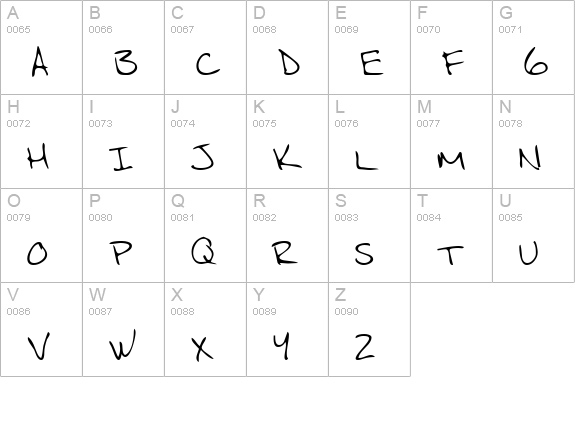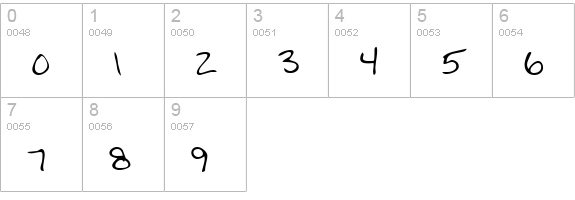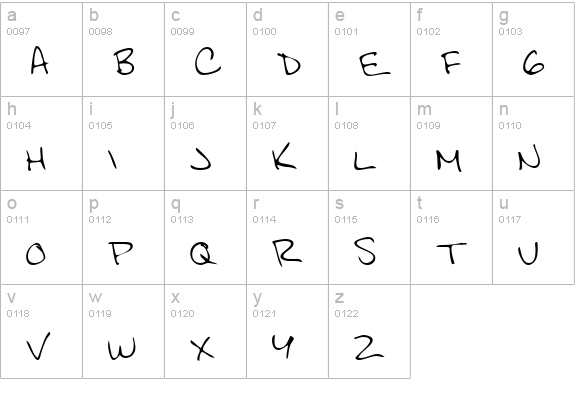
JeffreysHand Regular Font Details
JeffreysHand Regular is the standard, neutral variant in the JeffreysHand typeface family \xE2\x80\x94 well suited to general body text, paragraphs, and standard typographic work.
JeffreysHand Regular font is a charming and versatile typeface that exudes elegance and sophistication. Its smooth curves and flowing lines give a sense of warmth and friendliness, making it perfect for a wide range of design projects. This delightful font is ideal for adding a personal touch to invitations, greeting cards, logos, and more. Its timeless appeal and classic aesthetic make it a popular choice among designers and creatives looking to elevate their work. Best of all, JeffreysHand Regular font is available for free download at FontsMarket.com. So whether you're a seasoned professional or a budding designer, you can easily access this beautiful font and enhance your creations with its unique flair. Don't miss out on this fantastic opportunity to add JeffreysHand Regular font to your font collection today!